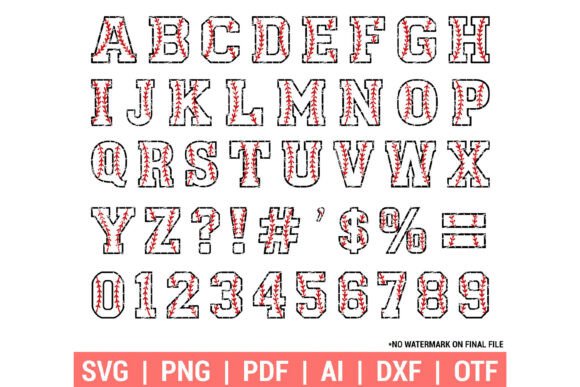
Introduction to Baseball Alphabet Font
As a designer, there’s nothing quite like the thrill of creating a project that captures the essence of a beloved sport. For many of us, that sport is baseball – the crack of the bat, the smell of fresh-cut grass, and the iconic red stitching on a perfectly thrown pitch. It’s moments like these that make us want to reach for our design tools and bring that magic to life. And what better way to do that than with the perfect font?
Enter the Baseball Alphabet Font – a game-changing design resource that’s about to become your new favorite tool. With its bold, blocky structure and integrated red stitching details, this font is the perfect way to add a touch of nostalgia and authenticity to any sports-themed project. Whether you’re creating a logo for a little league team or designing a scoreboard for a major league stadium, this high-quality font is sure to be a home run.
Key Features of Baseball Alphabet Font
- High-quality, unique design that combines the love of baseball with the classic alphabet font, perfect for creative projects.
- Designed to be highly legible, with a clear and crisp appearance, even at high resolutions (up to 300 DPI).
- Perfect for sports-themed designs, such as baseball-themed posters, jerseys, or other creative projects.
Honest Review: Baseball Alphabet Font
I recently had the chance to work with the Baseball Alphabet Font, and I must say it’s a solid addition to any design resource collection. The font is a great option for creative projects that require a sports-inspired touch, and it’s available for a free download.
What works well: ✨ The Baseball Alphabet Font is incredibly versatile and can be used for a wide range of applications, from posters and flyers to jerseys and merchandise. The font is also highly customizable, with a transparent background that makes it easy to layer over other design elements.
What could be improved: ⚠️ While the font is high quality, it’s not without its limitations. The character set is a bit limited, and the font may not be suitable for complex text-heavy projects. Additionally, the font could benefit from more variation in terms of letter spacing and line height.
Overall, I was impressed with the Baseball Alphabet Font’s potential for adding a unique touch to design projects. With a bit of creativity and experimentation, this font can help designers stand out from the crowd.
- High-quality, sports-inspired font
- Great for creative projects and design resources
- May not be suitable for complex text-heavy projects
The Baseball Alphabet Font is a unique and versatile design resource that can add a touch of nostalgia to any creative project. This high-quality font is perfect for designers and artists looking to create eye-catching graphics, posters, and other visual elements.
The Baseball Alphabet Font is perfect for a variety of creative projects, including:
Posters and flyers for sporting events and teams.